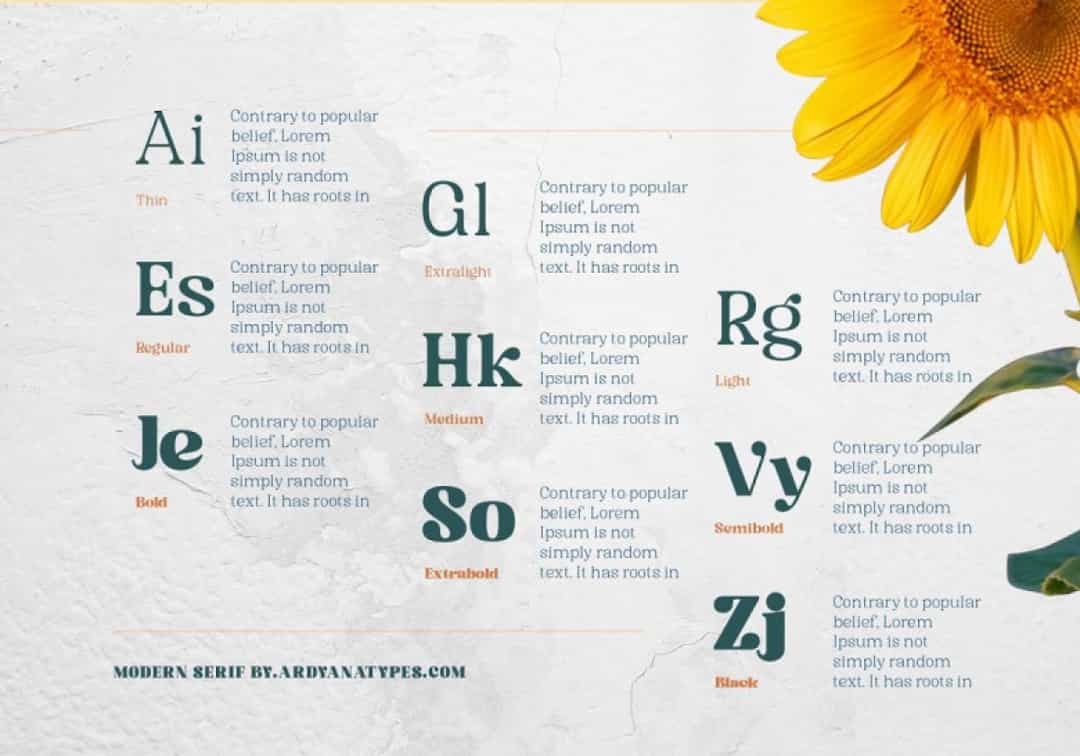
Glypster is an eye-catching serif font with bold strokes that gives a modern yet luxurious appearance. This font’s strong style exudes luxury while remaining subtle enough for multiple styles; adding peace and tranquility into its design. Glypster also works well with different languages as well as providing options that enhance its use for designs of all sorts.